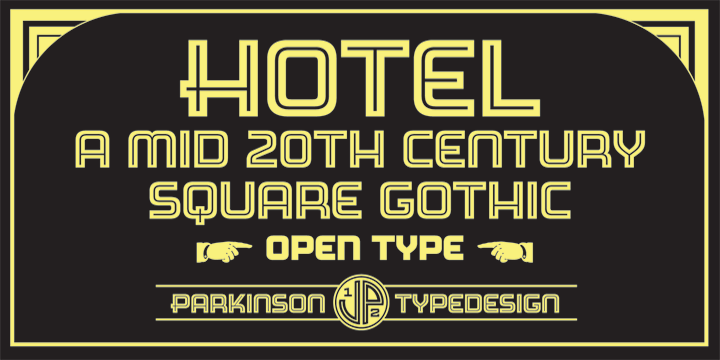
Designed by Jim Parkinson, Hotel is a display sans font family. This typeface has two styles and was published by Parkinson Type Design.
Hotel and Hotel Black are inlined and black variations of a square gothic style typical of Mid-20th Century Showcard Lettering. This genre is commonly known as gaspipe. Samples similar to this still exist on buildings in my home town, Oakland, California.
It was designed in 2012 by Jim Parkinson.